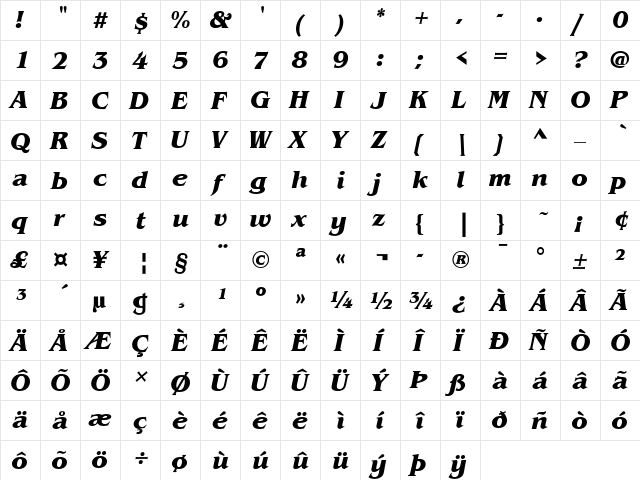
Benguiat Bold Italic
Design Context for Benguiat Typeface
Benguiat offers clean, dependable letterforms without strong stylistic allegiance, making it a practical choice for designers who need flexibility. The dynamic lean of this cut emphasises speed and emphasis in any layout. Its bold stroke weight gives it real presence on the page.
Pro Tip: Try Benguiat for annotation and caption copy alongside an upright companion — the contrast in angle creates a dynamic but ordered typographic system.